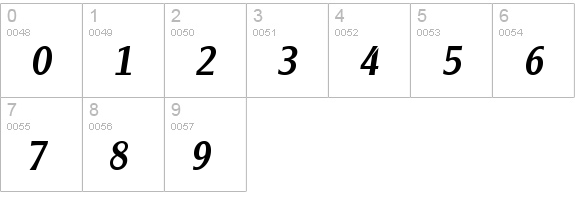
Cleargothic-MediumIta Font Details
Cleargothic-MediumIta font is a modern typeface that strikes the perfect balance between elegance and readability. With its clean lines and slight italicized slant, this font exudes sophistication and professionalism. Whether you're designing a sleek logo, crafting a polished presentation, or creating eye-catching branding materials, Cleargothic-MediumIta is the ideal choice to make your text stand out. And the best part? Cleargothic-MediumIta font is completely free to download at FontsMarket.com! This means you can elevate your designs without breaking the bank. So go ahead, give your projects a touch of class with the timeless appeal of Cleargothic-MediumIta font.